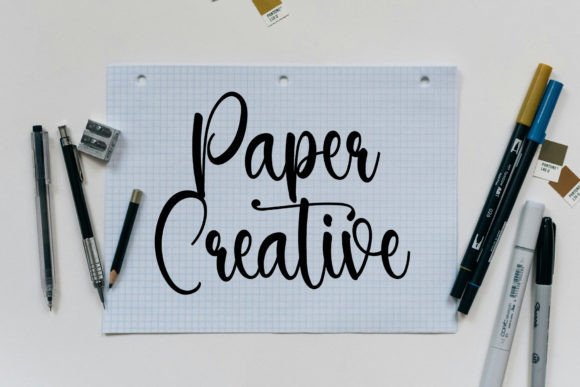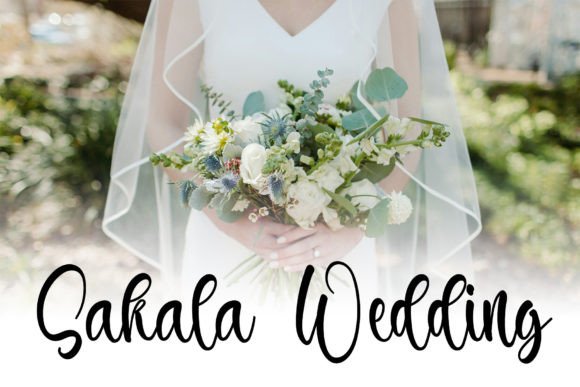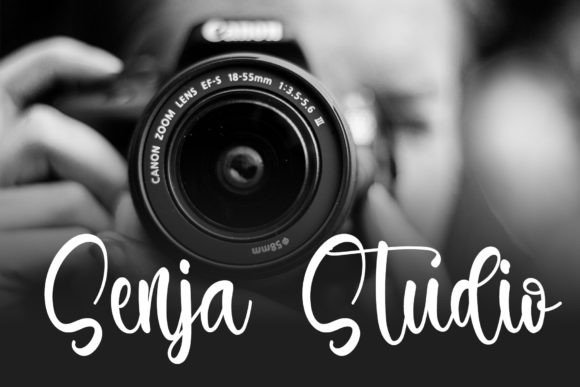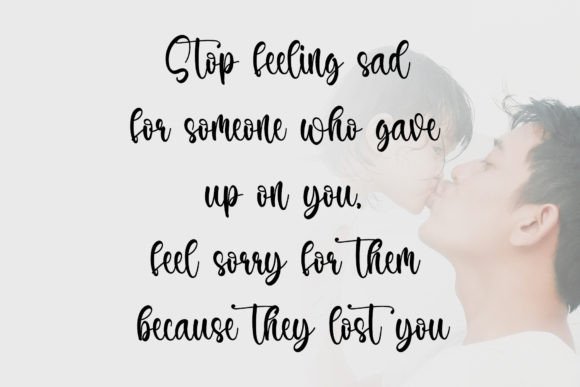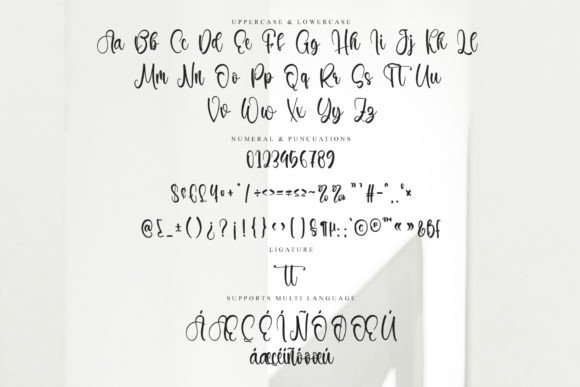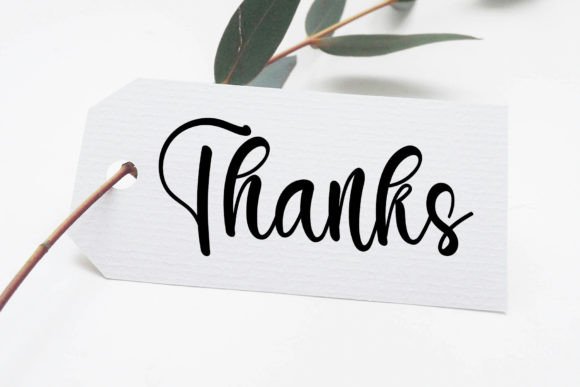
Introducing Blustery Font: Elevate Your Designs with Elegance and Whimsy
Are you a designer, crafty DIY enthusiast, or social media influencer looking for a font that adds a touch of magic to your creations? Look no further than Blustery Font, a beautiful handwritten script that brings elegance and sophistication to any design project. In this article, we’ll dive into the world of Blustery Font, exploring its features, uses, and benefits, and show you how this enchanting font can transform your designs into true works of art.
A Magical Handwritten Font
Blustery Font is a carefully crafted handwritten script that exudes a sense of whimsy and charm. Its flowing lines, delicate curves, and subtle imperfections evoke a sense of human touch, making it perfect for designs that require a personal and elegant feel. Whether you’re creating social media graphics, invitations, branding materials, or DIY projects, Blustery Font is sure to impress.
Elegance for Your Designs
Blustery Font is designed to add a touch of sophistication to your designs. Its elegant letterforms and flowing script make it ideal for creating beautiful headings, titles, and quotes. The font’s classic and timeless feel ensures that your designs will remain stylish and relevant for years to come. Whether you’re a professional designer or a DIY enthusiast, Blustery Font is the perfect choice for anyone looking to elevate their designs.
Perfect for Instagram and Social Media
In today’s digital age, social media is an essential platform for designers, crafters, and influencers to showcase their work. Blustery Font is optimized for Instagram and other social media platforms, making it easy to create stunning graphics, quotes, and stories that grab attention. The font’s clear and legible design ensures that your message is conveyed effectively, even at small sizes.
Calligraphy Scripts for DIY Projects
Blustery Font is not just limited to digital designs; it’s also perfect for DIY projects that require a personal touch. Whether you’re creating handmade cards, invitations, or wall art, this font can be used to add a beautiful, calligraphy-style script to your projects. The font’s flexibility and versatility make it suitable for a wide range of DIY applications, from scrapbooking to crafting.
Transforming Creative Ideas into Art
Blustery Font has the power to transform any creative idea into a true piece of art. Its magical and whimsical feel inspires designers and crafters to experiment with new ideas and push the boundaries of their creativity. Whether you’re working on a branding project, a social media campaign, or a DIY craft, Blustery Font provides the perfect foundation for creating something truly special.
Key Features of Blustery Font
- Magical handwritten script: Blustery Font features a beautiful, flowing script that adds a touch of elegance to any design.
- Elegant and sophisticated: The font’s classic and timeless feel makes it perfect for designs that require a sense of sophistication.
- Optimized for social media: Blustery Font is designed to work well on social media platforms, including Instagram, Facebook, and Twitter.
- Perfect for DIY projects: The font’s flexibility and versatility make it suitable for a wide range of DIY applications.
In conclusion, Blustery Font is a beautiful and versatile handwritten script that adds a touch of elegance and whimsy to any design project. Whether you’re a designer, crafty DIY enthusiast, or social media influencer, this font is sure to inspire your creativity and transform your designs into true works of art. With its magical feel, elegant letterforms, and flexibility, Blustery Font is the perfect choice for anyone looking to elevate their designs and take their creativity to the next level.